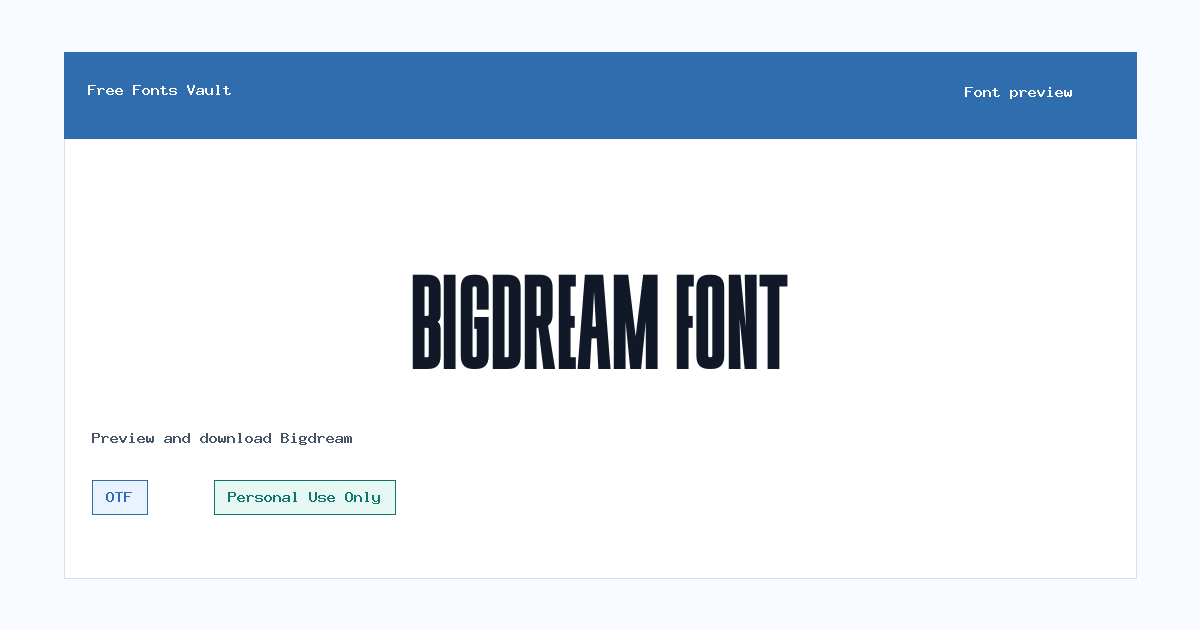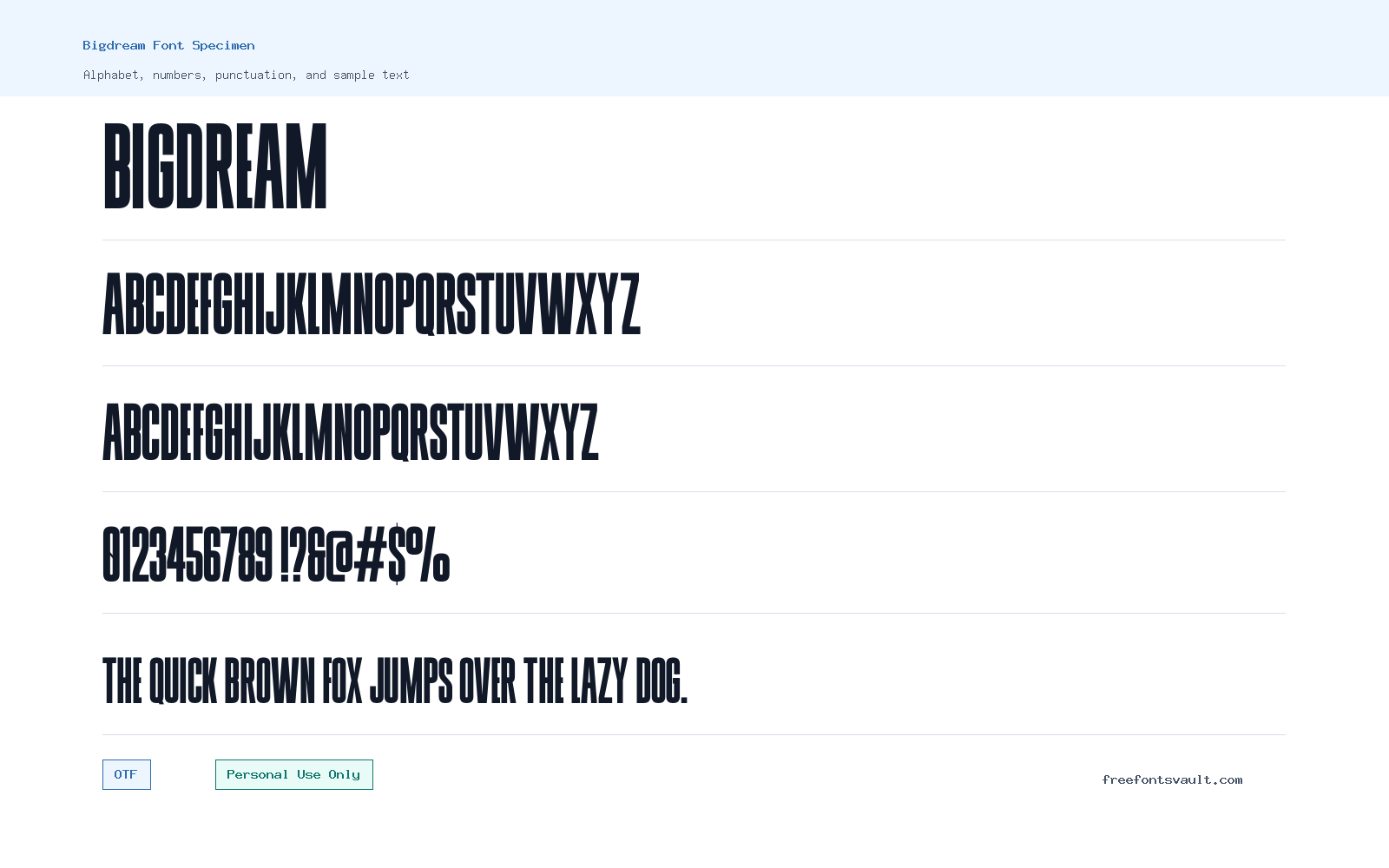
Bigdream
- Designer Funtype Co.
- Foundry Funtype Co.
Bigdream font.
Bigdream is a clean sans serif font from Funtype Co. with a simple regular style that works best when you need clear, modern lettering for personal projects.
About Bigdream Font
Bigdream has the straightforward feel of a sans serif display font, making it a good choice for short pieces of text where the letters need to look neat without pulling attention away from the message. The included style is regular weight, so it is not built around heavy contrast, decorative swashes, or an extended family of weights. That makes it easy to test for titles, small branding drafts, social graphics, quote cards, poster headings, and simple web mockups. Because only one regular OTF file is listed, it is best to treat Bigdream as a single-style font rather than a full design system.
Use the preview box to test the exact words you plan to design with, especially if your project uses names, all caps, numbers, punctuation, or tight spacing. A font can feel very different in a two-word logo draft than it does in a long sentence. Bigdream should be most useful for headings and short text blocks, while longer paragraphs may need a more neutral companion font with multiple weights and stronger reading rhythm. For pairing, try it with a plain body sans serif or a calm serif that does not compete with the headline. Keep spacing generous in posters and thumbnails, and check legibility at small sizes before exporting your design.
- Simple letterforms suited to short titles, previews, and personal design drafts
- Personal-use logos, quote cards, social posts, and poster headings
- Testing clean sans serif typography in mockups, thumbnails, and display text
Bigdream is credited to Funtype Co., which is also listed as the foundry.
What style of font is Bigdream?
Bigdream is presented as a sans serif font in a regular style. It is best tested in short headings, title text, and simple graphic layouts.
Is Bigdream good for paragraphs?
It is better suited to short display text. For long reading sections, pair it with a dedicated body font and check readability on both desktop and mobile sizes.